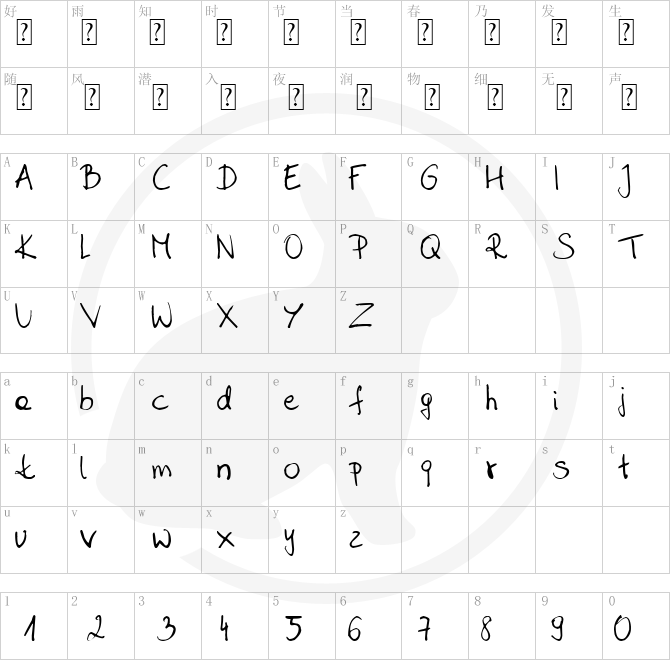
- Font Name:SaharaHandwriting
SaharaHandwriting.ttf is a very beautiful artistic font, SaharaHandwriting.ttf is widely used in the design and printing of various books and pictures,SaharaHandwriting.ttf has a strong visual impact,SaharaHandwriting.ttf is a commonly used font in newspapers, magazines and books, and is used in posters, e-commerce Poster design, store design, logo design, font design and other fields.SaharaHandwriting.